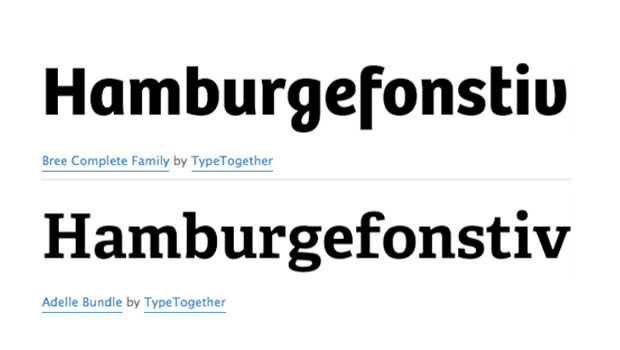
Ascender Foundry Adds TypeTogether Fonts
Ascender Corp is pleased to announce that the award-winning fonts from TypeTogether are now available for licensing from Ascender. The TypeTogether font collection features a range of text and headline typefaces designed for the professional design and publishing market. Ascender is making the fonts available for end users to download from its AscenderFonts.com website, and also for licensing to its software developer and hardware manufacture customers for including in products.
TypeTogether is an independent type foundry found by Veronika Burian and José Scaglione in 2006. The two designers met at the University of Reading while completing their MAs in Type Design. TypeTogether creates and publishes high quality typefaces and collaborates on new type projects together, and is focused on finding innovative and stylish solutions, especially on fonts for reading.
“What we like about Ascender is their reputation as an innovative font developer and distributor, and their expertise with licensing fonts to everyone from home users to major corporations,” said Veronika Burian, co-founder of TypeTogether. “We share the same passion for high quality, and look forward to working together to bring our font collection to a wider audience” she added.
The TypeTogether font collection features extensive OpenType typographic features, and their typefaces have achieved recognition in several international competitions, including TDC and ED-Awards.
Two examples from the collection: